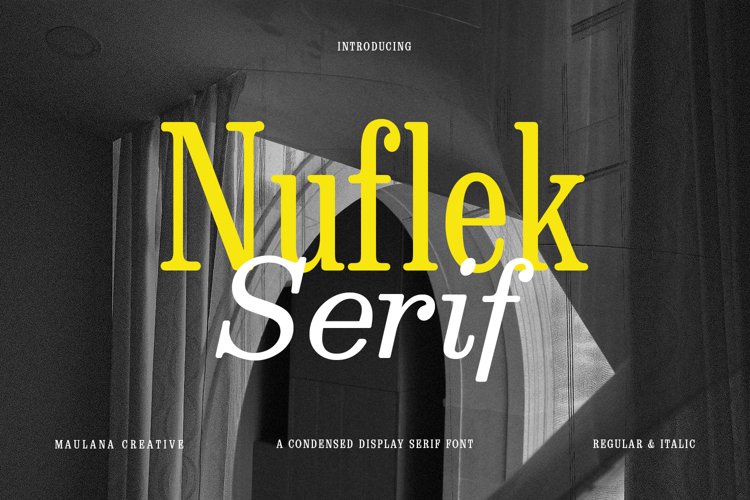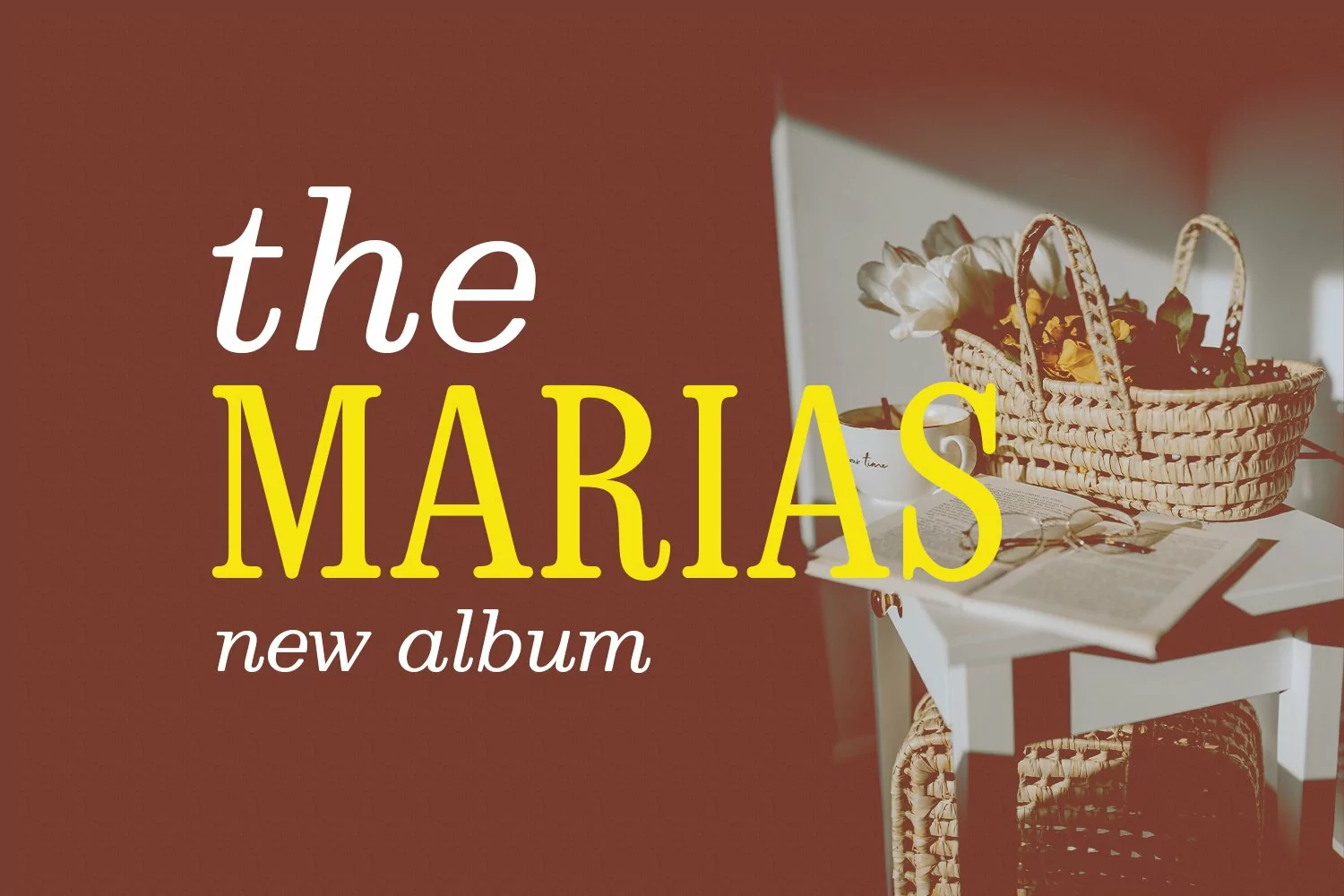
Nuflek Display Serif Font. With bold contrast stroke, fun character with a bit of ligatures and alternates. To give you an extra creative work. Nuflek Display Serif Font support multilingual more than 100+ language. This font is good for logo design, Social media, Movie Titles, Books Titles, a short text even a long text letter and good for your secondary text font with sans or serif. Make a stunning work with Nuflek Display Serif Font.